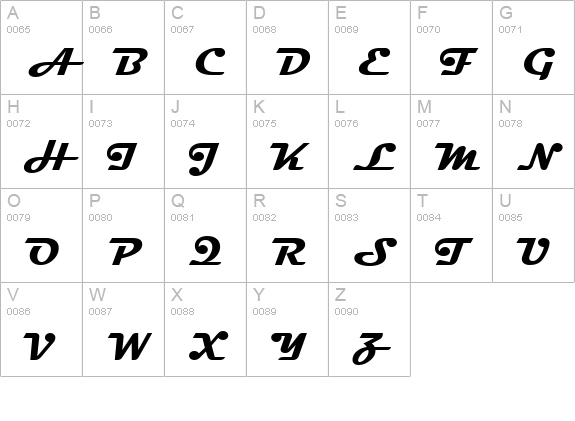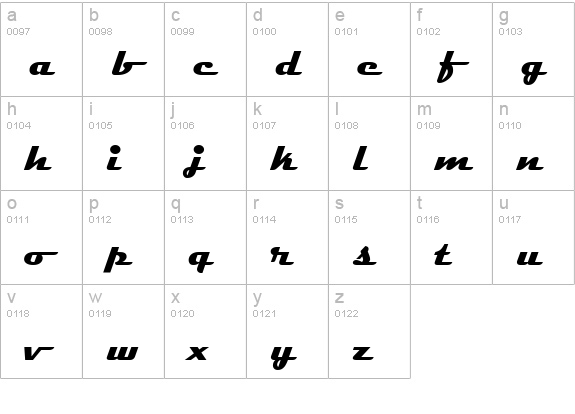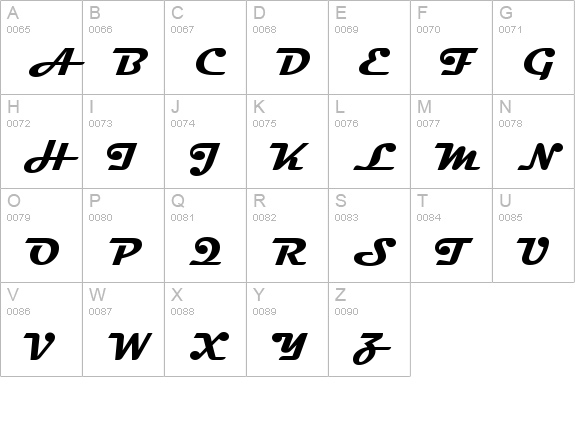
Magneto Bold is a strong, high-contrast variant in the Magneto typeface family \xE2\x80\x94 well suited to headlines, attention-grabbing titles, and strong calls-to-action.
Introducing Magneto Bold font, a captivating typeface that exudes elegance, strength, and sophistication. With its bold and distinctive letterforms, Magneto Bold commands attention and leaves a lasting impression on any design project. This versatile font is perfect for a wide range of applications including logos, titles, headlines, packaging, and more. Its bold strokes and unique design make it stand out on any medium, whether it's print or digital. But what truly sets Magneto Bold apart is its accessibility. This exceptional font is available for free download at FontsMarket.com, making it even more desirable for designers, creatives, and typographic enthusiasts. By freely offering Magneto Bold, FontsMarket.com ensures that everyone has the opportunity to access this exceptional font and incorporate it into their projects without any limitations. Whether you are a professional designer or simply someone who appreciates the power of typography, Magneto Bold is a must-have addition to your font collection. Embrace its captivating charm and unleash its potential to elevate your designs to new heights. Get ready to make a bold statement with Magneto Bold. Download it for free today at FontsMarket.com!